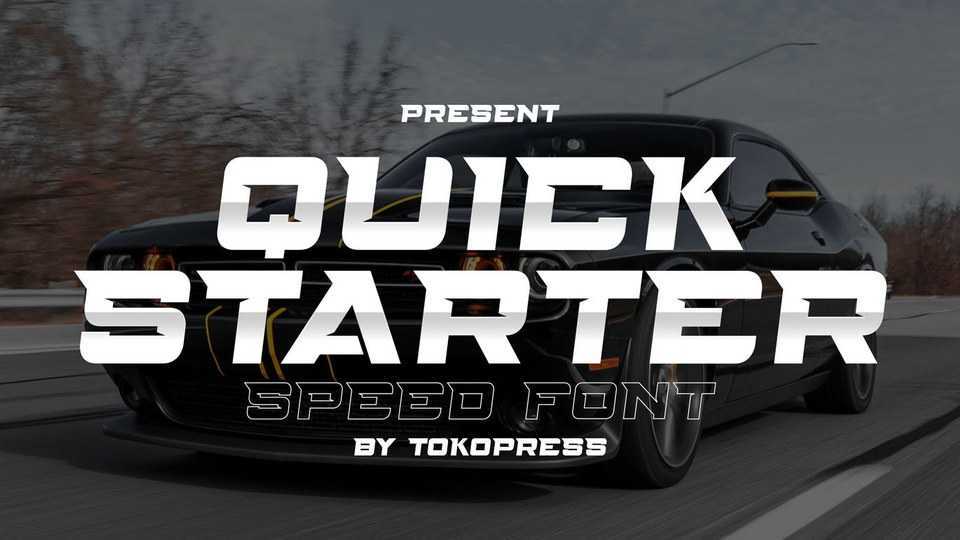
Download Quickstarter font, a racing gaming typeface. With a powerful, strong sharp corner, and a solid shape for uppercase, and a linear version for the lowercase, it will make Quickstarter emphasize the racing spirit inside your designs.